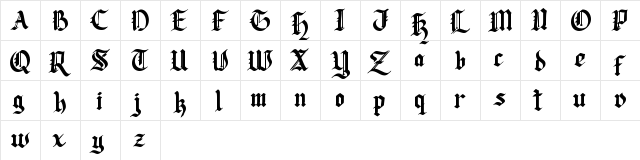
Lodeh Regular
Design Context for Lodeh Typeface
Lodeh takes a measured approach to typography — its balanced proportions and neutral character make it a reliable workhorse for both digital and print work.